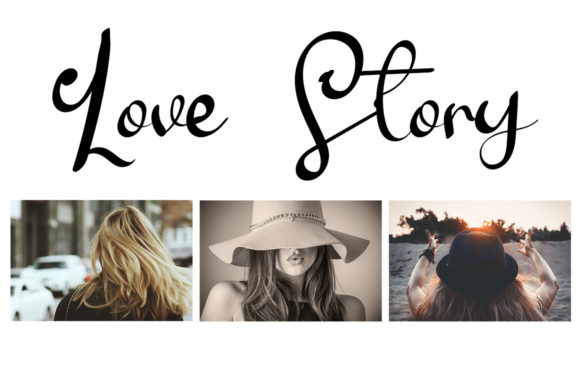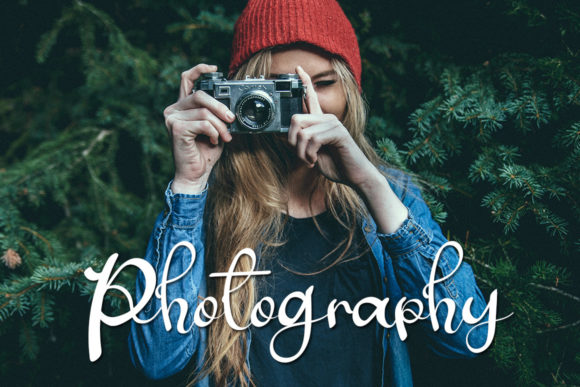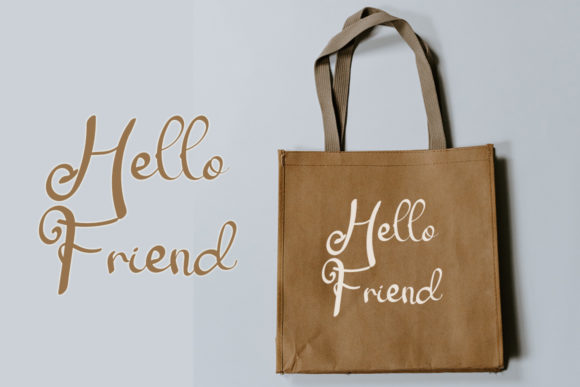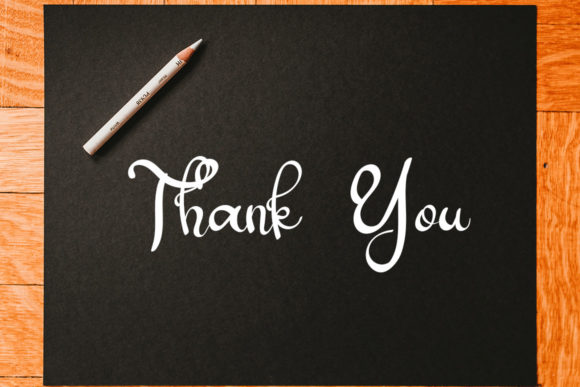
The Ultimate Guide to Casting Font: Elevate Your Designs with Confidence and Style
I’ll never forget the time I was working on a branding project for a trendy boutique, and I just couldn’t find the right font to capture the essence of the brand. The client wanted something that exuded confidence, versatility, and a dash of sophistication. That’s when I stumbled upon Casting Font, and it instantly became the perfect match. In this article, I’ll share my love for this chic script font, its features, and how to make the most of it in your designs.
An Honest Review of Casting Font
- ✨ Stylish alternates and ligatures that add a touch of elegance to any project
- ✅ Highly versatile and adaptable to various design contexts, from logos to social media graphics
- 💃 Confident and modern feel that’s perfect for brands looking to make a statement
- 🎨 Extensive character set and OpenType features for endless creative possibilities
While Casting Font is an amazing addition to any design arsenal, there are a few things to keep in mind:
- 🤔 Some users might find the font a bit too condensed for certain applications, such as body text or lengthy paragraphs
- ⚠️ Limited availability of Cyrillic or non-Latin scripts, which might be a concern for global brands
A Practical Guide to Using Casting Font
If you’re looking for fonts with a similar personality to Casting Font, consider these alternatives:
- Maison Neue: A modern, geometric sans-serif font with a sophisticated feel
- Playfair Display: An elegant, luxurious script font perfect for headlines and titles
- Great Vibes: A fun, energetic script font with a playful vibe
- Pacifico: A beautiful, elegant script font with a relaxed, beachy feel
Casting Font was designed with the intention of creating a modern, confident script font that would inspire designers to push the boundaries of typography. The designer aimed to craft a font that would be both stylish and versatile, with a unique character that would set it apart from other fonts on the market.
| Font Name | Casting Font |
| Author | Eddygoodboy |
| What makes Casting Font unique? | Casting Font’s unique blend of stylish alternates, ligatures, and OpenType features sets it apart from other script fonts. |
| Is Casting Font suitable for body text? | While Casting Font is primarily designed for headlines and titles, it can be used for short paragraphs or body text in certain contexts. |